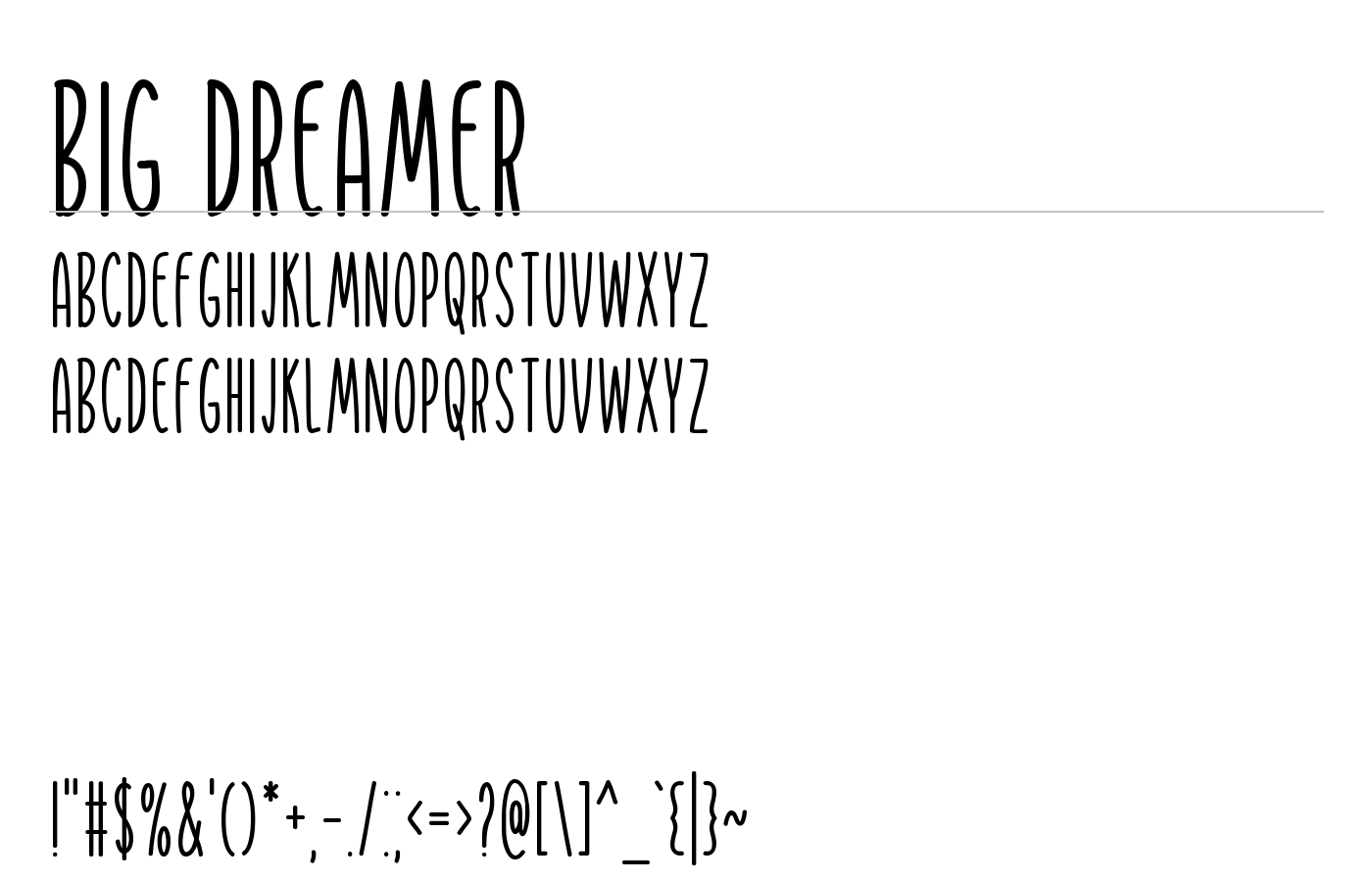
Big Dreamer is a tall, narrow sans serif font with a playful, hand-drawn feel that combines simplicity with character. Its thin strokes and casual curves give it an approachable and whimsical personality, making it ideal for creative projects, children’s books, or friendly branding that seeks a warm and informal vibe. This font works best in headlines and display text where its unique style can truly shine and capture attention.
Big Dreamer Font
About Big Dreamer Font